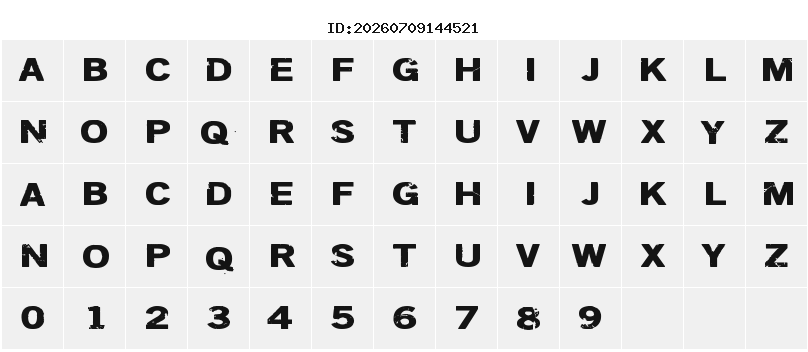
DSIODRER Preview
• Font Name: DSIODRER
• Full Font Name: DSIODRER
• Version: Version 1.00 April 22, 2014, initial release
About DSIODRER.ttf
DSIODRER.ttf is a modern, elegant sans-serif font designed for ultimate readability and visual harmony. Perfect for branding, headlines, web design, and print materials.